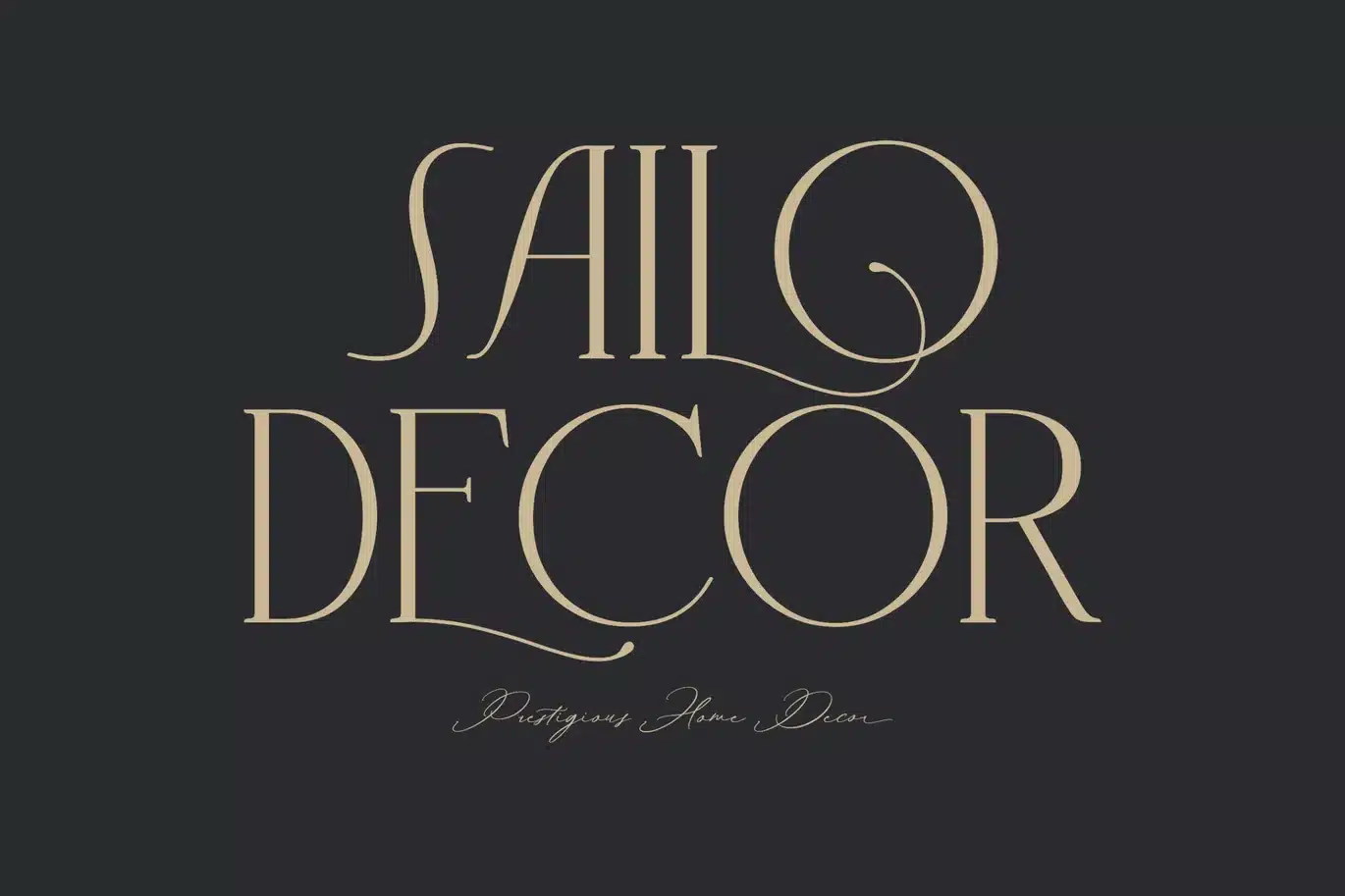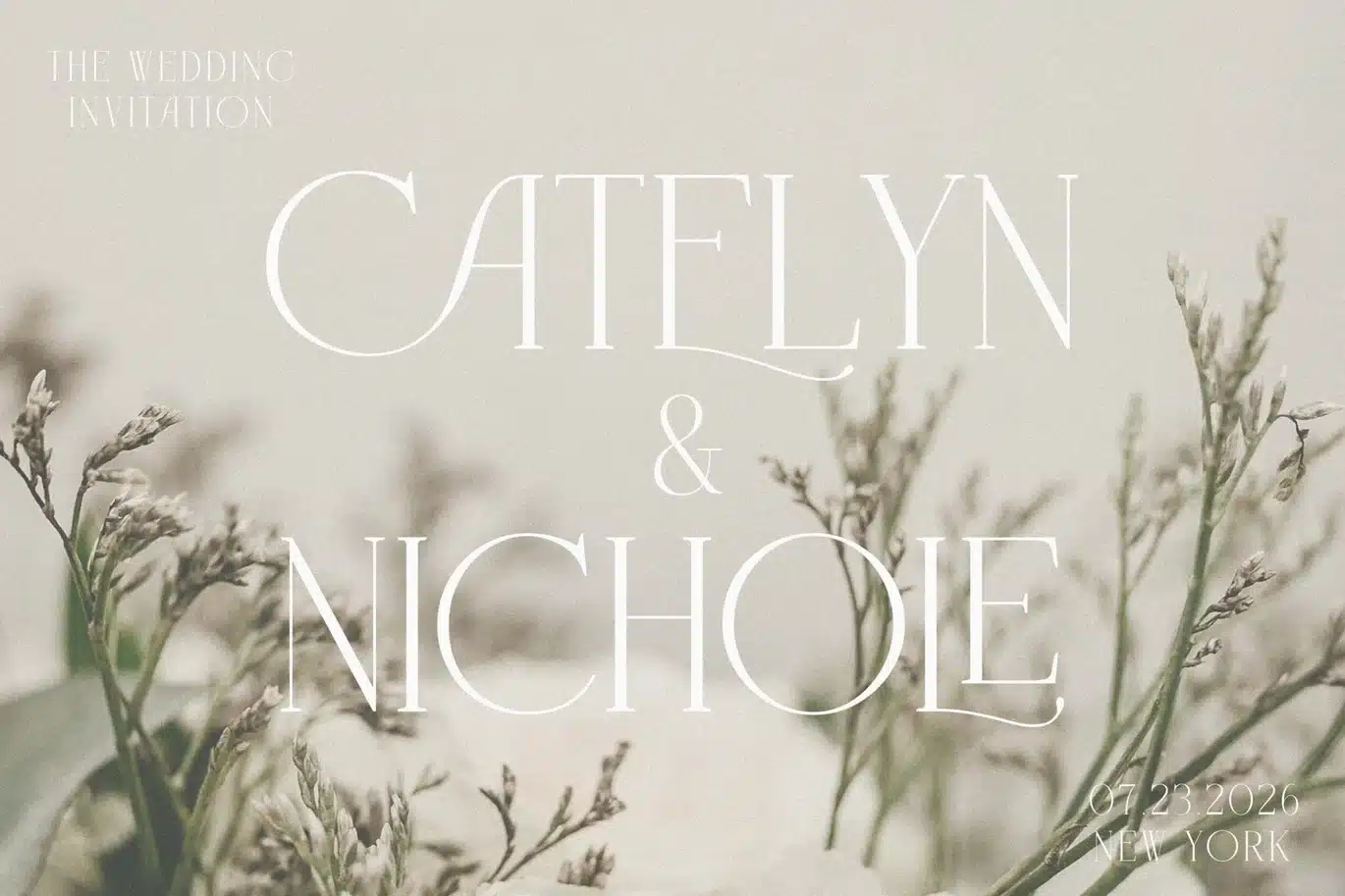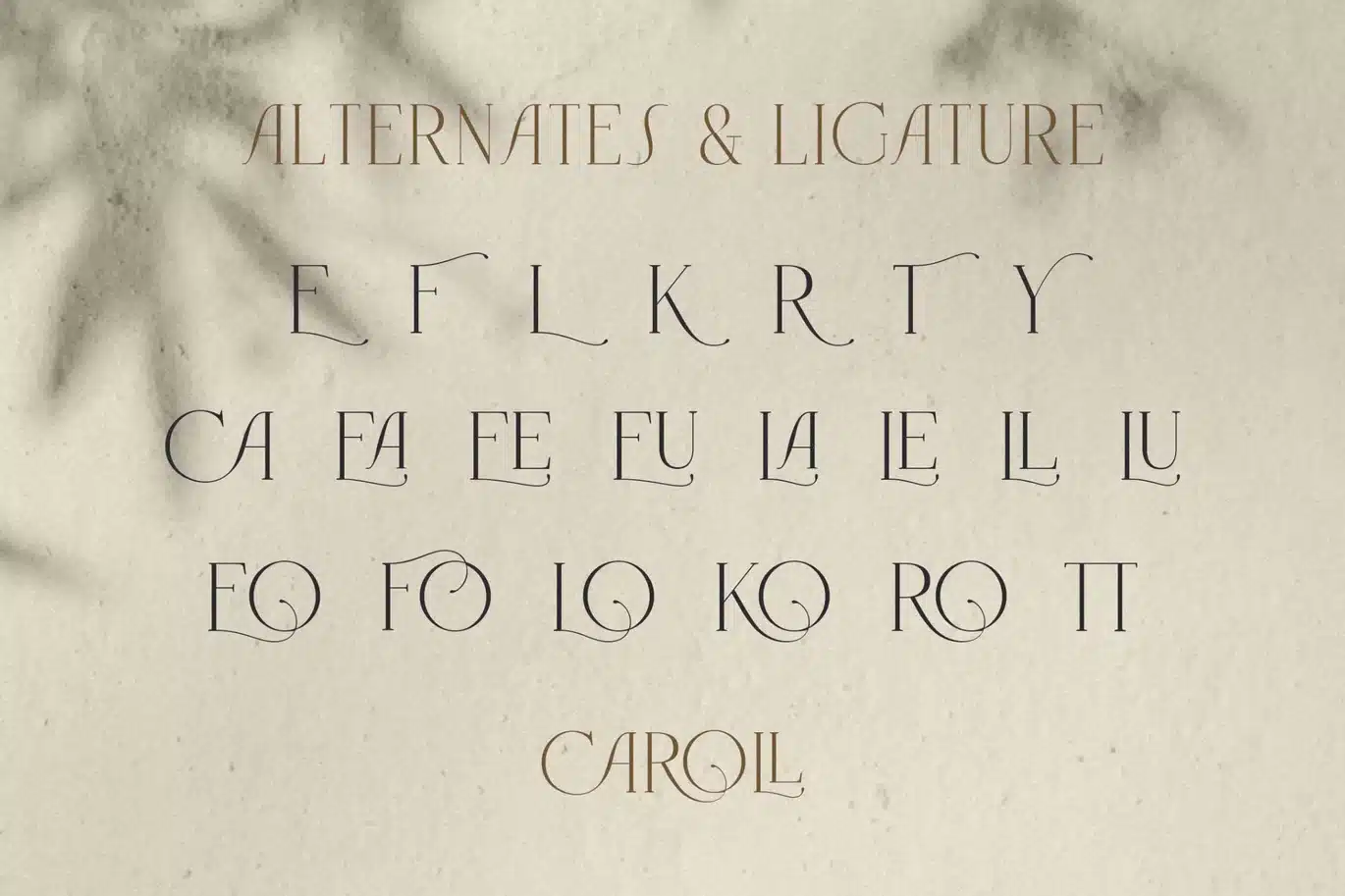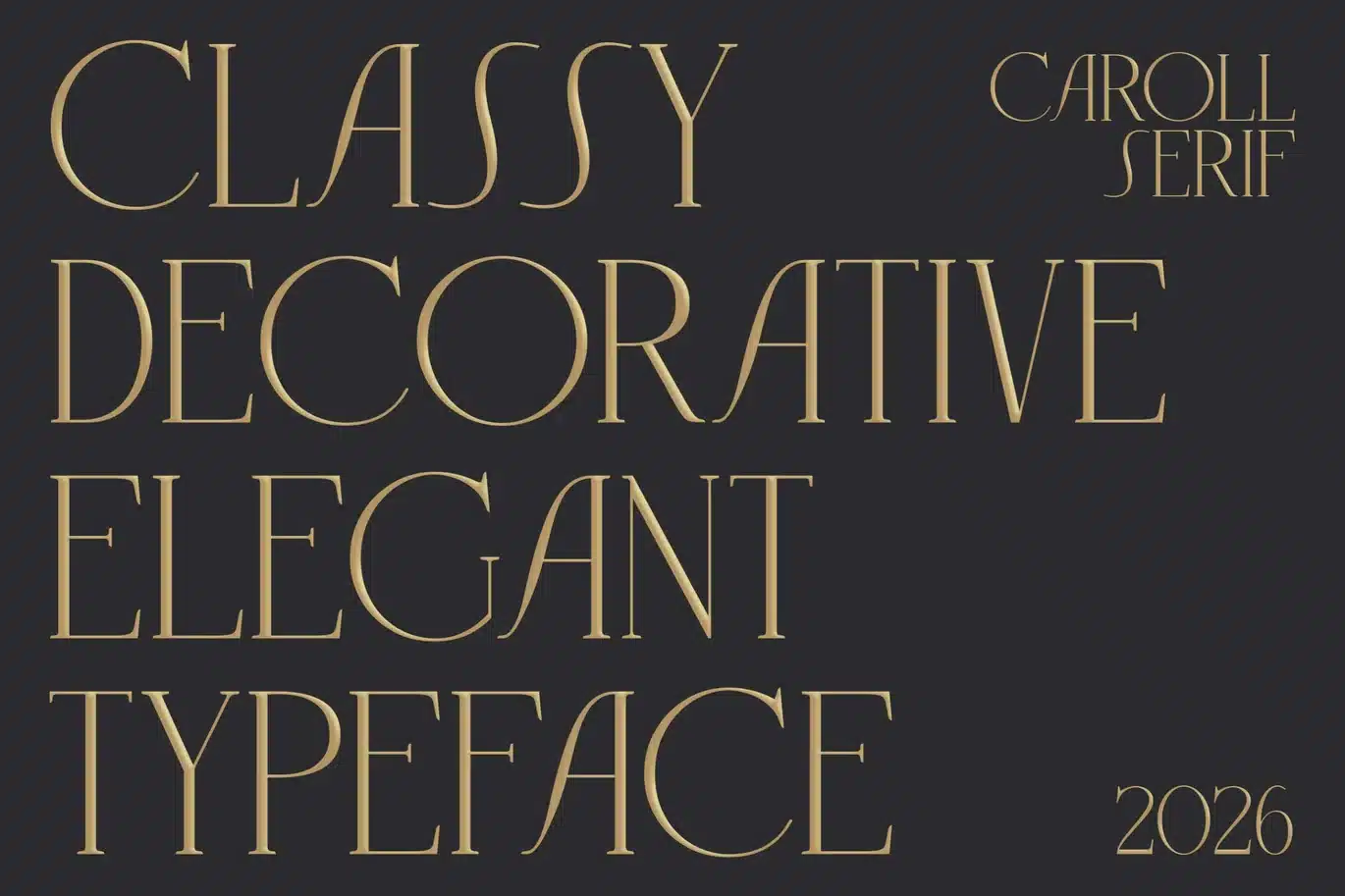
Caroll – Classy Decorative Serif Font
Caroll is a classy decorative serif font designed to bring an elegant and artistic touch to your creative projects. Featuring unique decorative details, refined curves, and stylish letterforms, it is perfect for luxury branding, logos, packaging, invitations, editorial layouts, and high-end designs. This typeface blends classic sophistication with decorative flair, making it ideal for eye-catching typography in both print and digital applications. With ligatures, alternates, and multilingual support, Caroll allows you to create distinctive and visually rich designs effortlessly.
- Decorative Serif Style – Elegant and artistic letterforms
- Ligatures & Alternates – Enhanced typographic flexibility
- Multilingual Support – Supports multiple languages